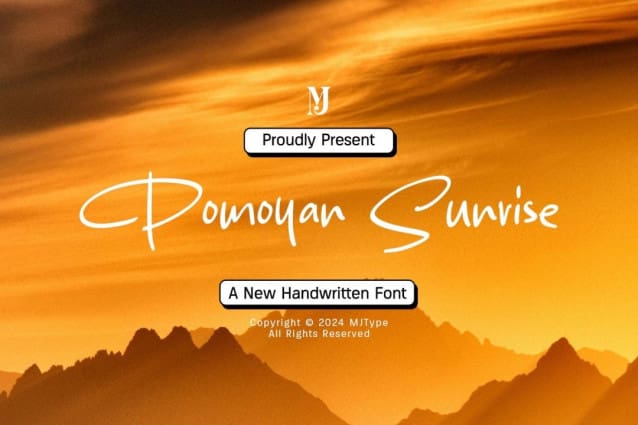
Pomoyan Sunrise Font
Pomoyan Sunrise Font is a simple and friendly handwritten font. Its natural and unique style makes it incredibly fitting to a large pool of designs. The only limit is your imagination!